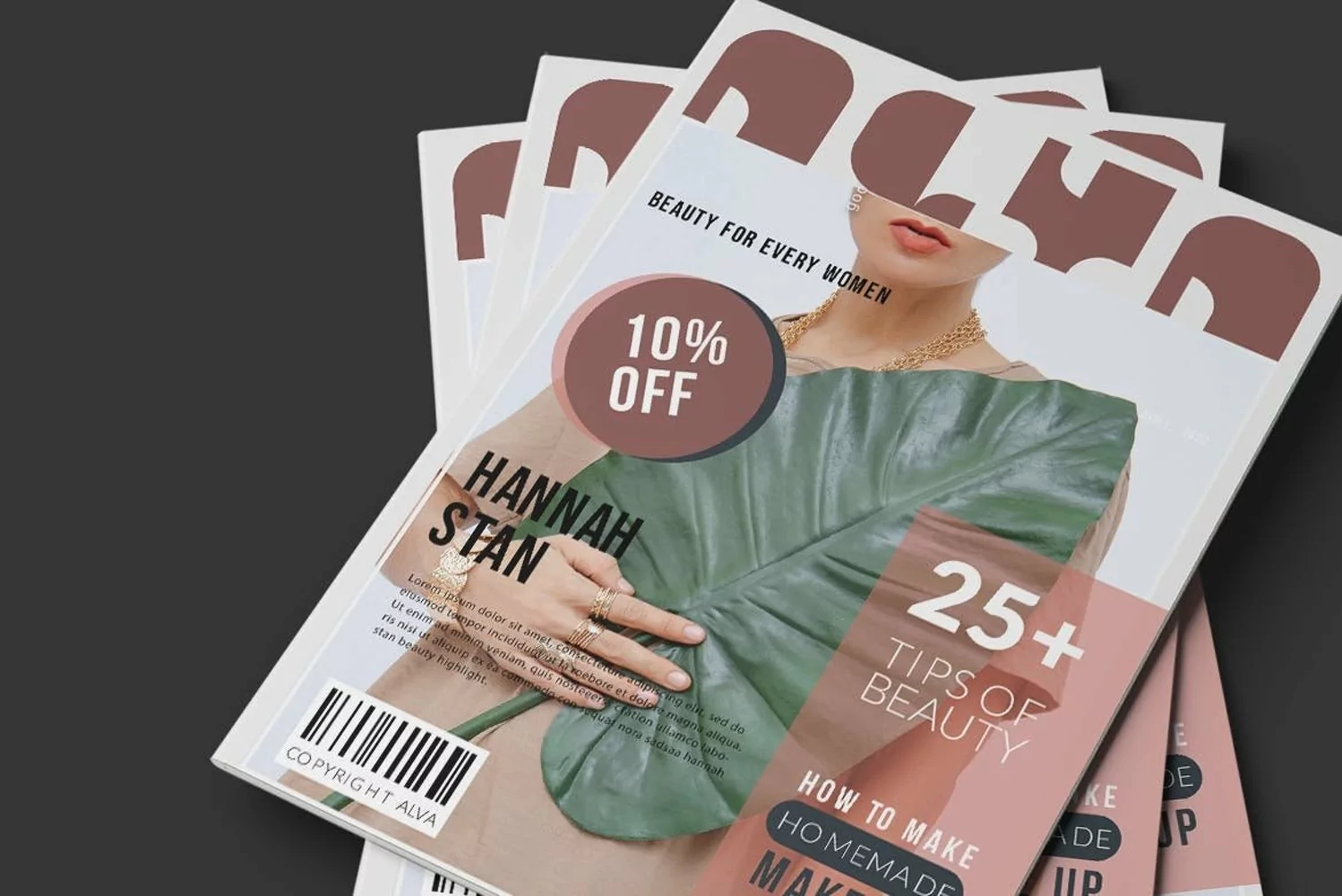
CHARLES block font has a solid and elegant block font, that portray the masculinity and strong individual in this competitive business world.
Suit perfectly for Fashion logo, apparel, poster, movie title, magazine, youtube covers, youtube thumbnails, social media page covers and so on…